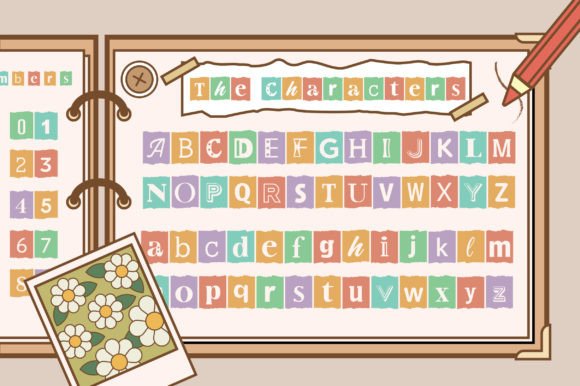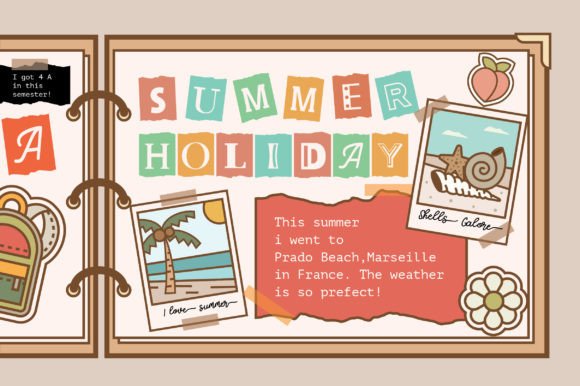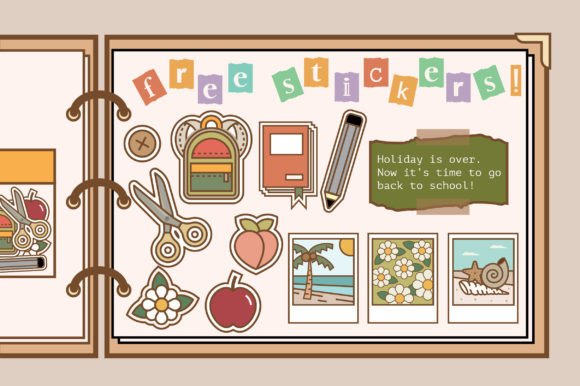
Introducing After School Holiday Font: The Perfect Addition to Your Scrapbooking Arsenal
Are you a designer or crafter looking for a unique and creative way to add a personal touch to your scrapbooking projects? Look no further than the After School Holiday font, a decorative font with a charming scrapbook style that’s sure to elevate your designs to the next level. In this article, we’ll take a closer look at the features and benefits of this amazing font, and explore the many ways you can use it to achieve a scrapbook-looking design that’s both beautiful and eye-catching.
What is After School Holiday Font?
After School Holiday is a decorative font that perfectly captures the essence of scrapbooking. With its playful and whimsical design, this font is reminiscent of the classic scrapbooks of yesteryear, but with a modern twist that’s sure to appeal to designers and crafters of all ages. Whether you’re creating a photo album, a journal page, or a handmade card, this font is the perfect choice for adding a touch of personality and flair to your project.
Key Features of After School Holiday Font
So what makes After School Holiday font so special? Here are just a few of its key features:
- Scrapbook-style design: This font has a distinctly scrapbook-like feel, with irregular shapes, playful flourishes, and a charmingly imperfect aesthetic that’s sure to add a touch of warmth and personality to your designs.
- Decorative and eye-catching: With its intricate details and ornate design, After School Holiday font is sure to grab attention and add visual interest to your projects.
- Versatile: This font can be used for a wide range of projects, from scrapbooking and journaling to card-making and crafting.
Creative Ways to Use After School Holiday Font
So how can you use After School Holiday font to achieve a scrapbook-looking design? Here are just a few ideas to get you started:
- Create a title page: Use After School Holiday font to create a beautiful title page for your scrapbook or photo album, complete with a decorative heading and a personal message.
- Add journaling: Use this font to add journaling to your scrapbook pages, including notes, stories, and memories that bring your photos to life.
- Make a handmade card: Use After School Holiday font to create a one-of-a-kind handmade card, complete with a decorative front and a personal message inside.
- Design a photo booth prop: Use this font to create a fun and playful photo booth prop, complete with a decorative sign or banner.
Tips for Getting the Most Out of After School Holiday Font
Here are a few tips for getting the most out of After School Holiday font:
- Experiment with different colors: Try pairing After School Holiday font with different colors and textures to create a unique and eye-catching design.
- Mix and match with other fonts: Don’t be afraid to combine After School Holiday font with other fonts and styles to create a truly unique look.
- Use it sparingly: While After School Holiday font is certainly eye-catching, it can also be overwhelming if overused. Try using it sparingly to add a touch of personality to your designs.
After School Holiday font is a versatile and decorative font that’s perfect for designers and crafters looking to add a personal touch to their scrapbooking projects. With its scrapbook-style design, irregular shapes, and playful flourishes, this font is sure to add a touch of warmth and personality to your designs. Whether you’re creating a photo album, a journal page, or a handmade card, After School Holiday font is the perfect choice for achieving a scrapbook-looking design that’s both beautiful and eye-catching.